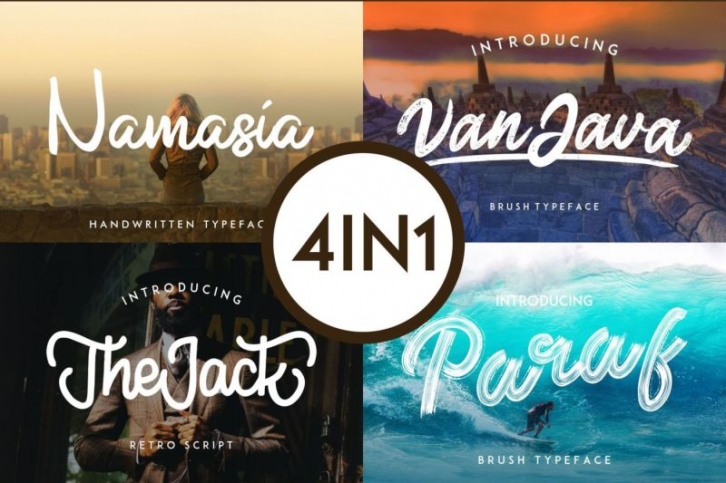
New Years Bundle | Brush Font Download
This beautiful new year, we Banyumili Studios provide special prices and products for those of you who enjoy happy moments in this new year. In this bundle, we give 4 brush fonts that are very modern and eyecathing. Can be applied to various media. Like invitations, magazines, t-shirts, logos and more!